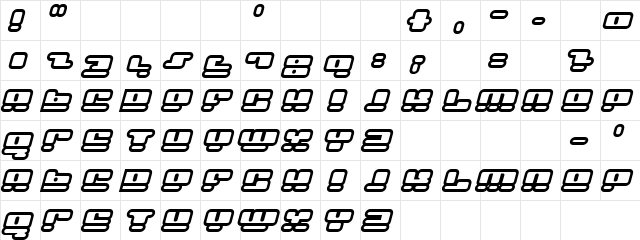
Plague Rare Hollow Regular
Design Context for Plague Rare Hollow Typeface
Plague Rare Hollow is a composed and adaptable typeface that performs quietly and consistently across a wide range of design contexts.